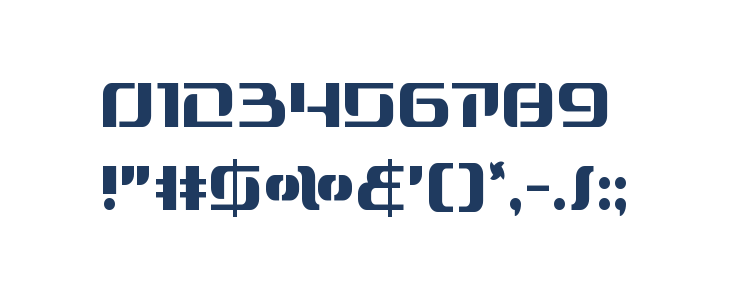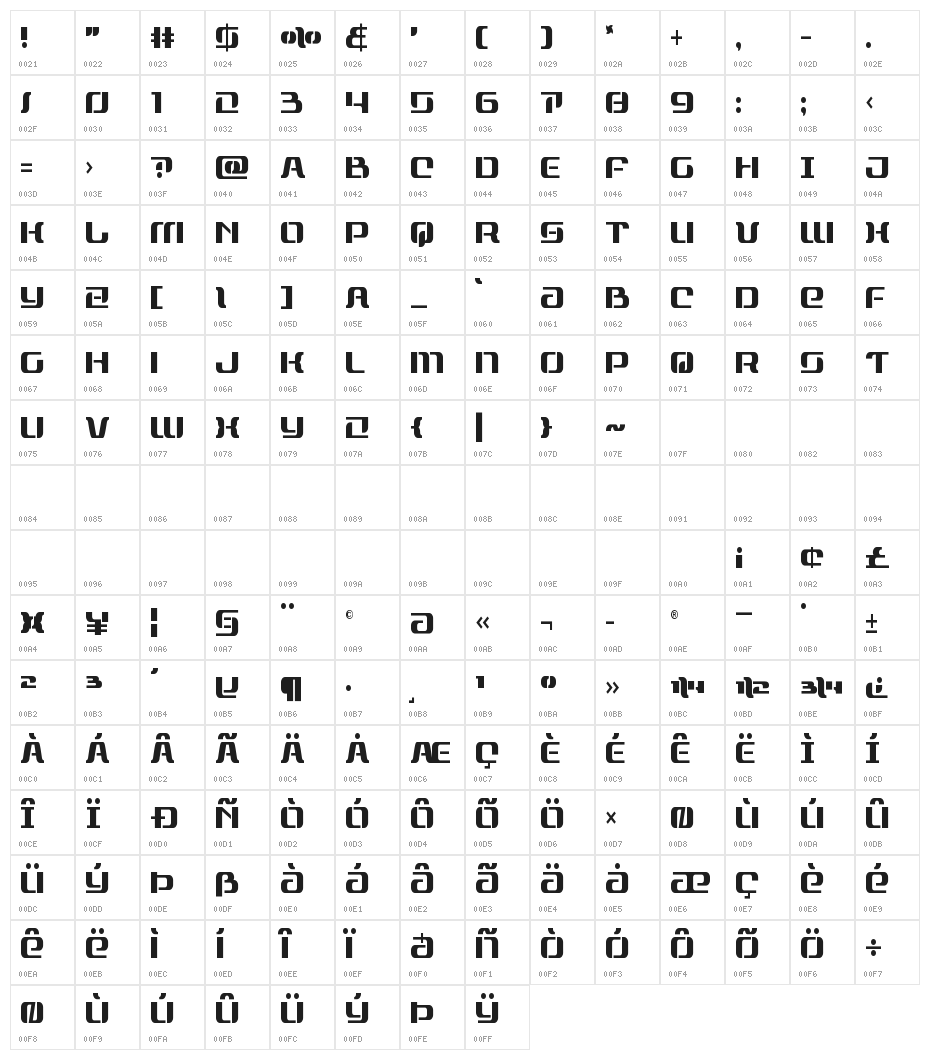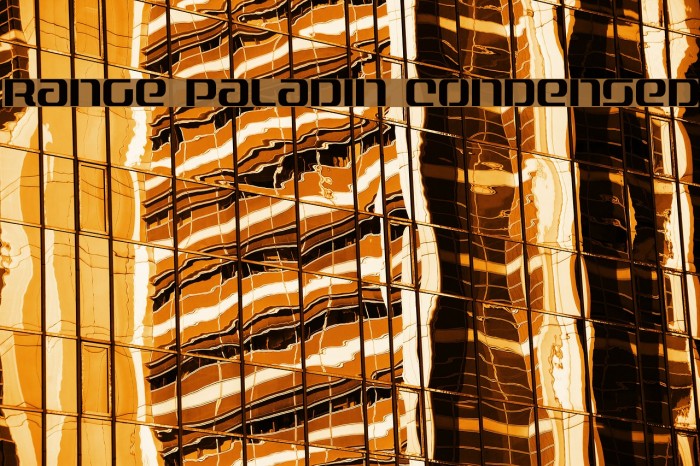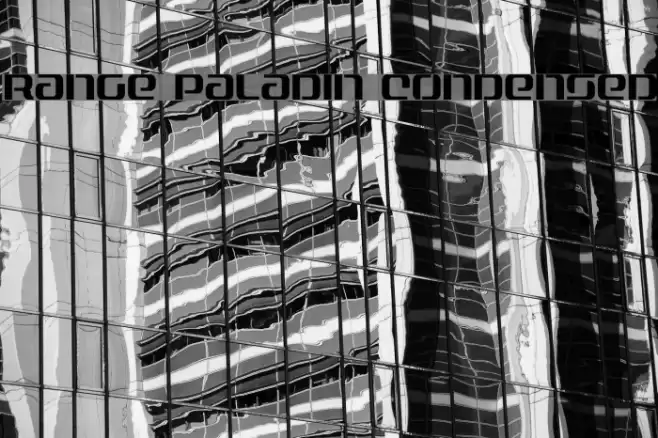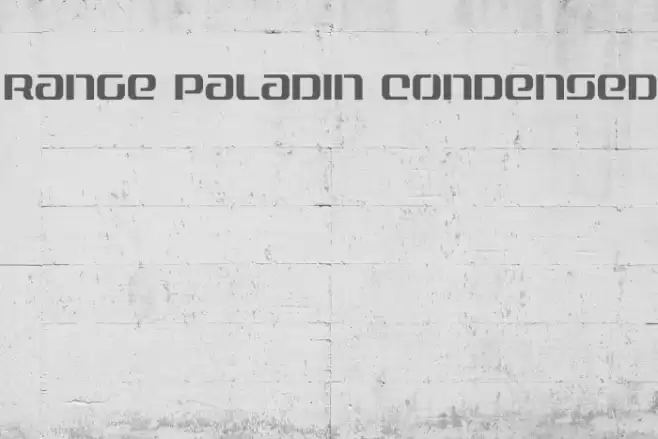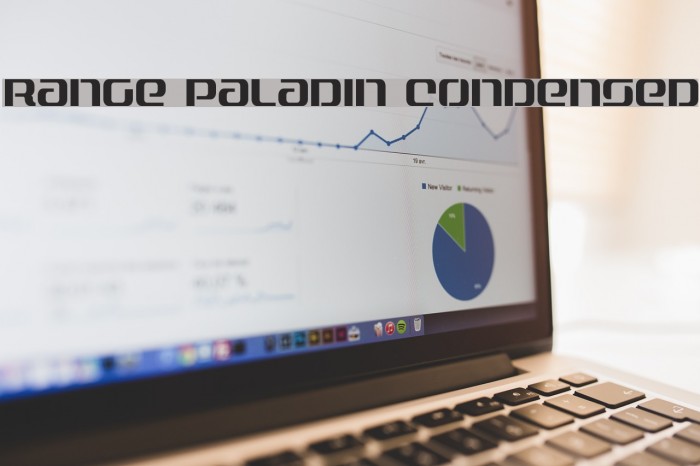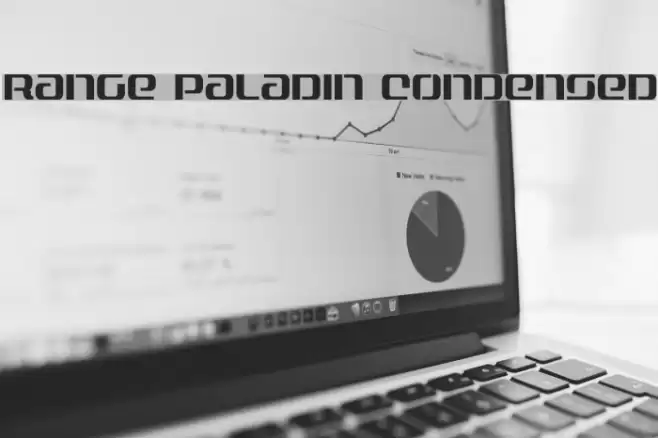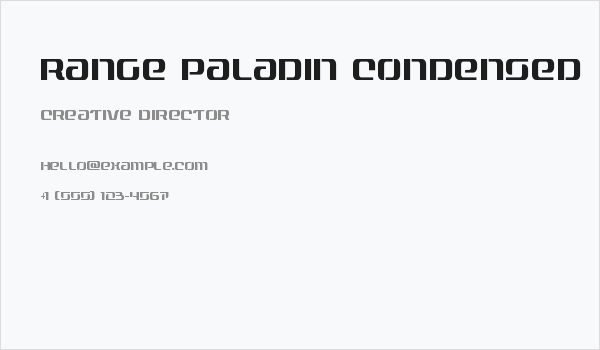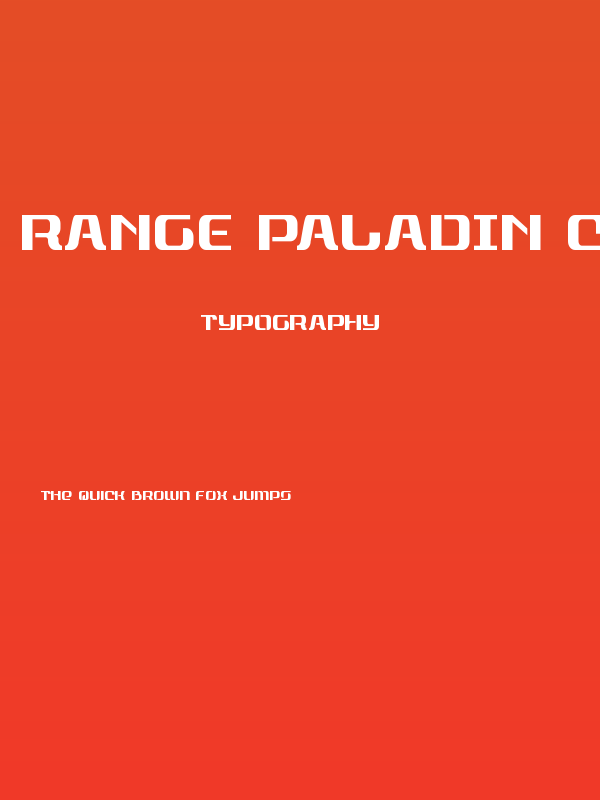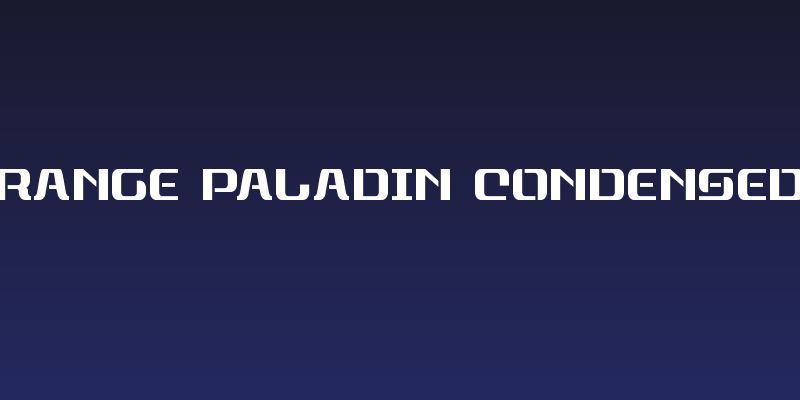
Range Paladin Condensed Font
Range Paladin Condensed Description
This font features a bold and futuristic design with a distinctly geometric structure. The characters are condensed, providing a compact and efficient use of space. Each letter is crafted with sharp angles and clean lines, creating a modern and tech-inspired aesthetic. The uppercase and lowercase letters maintain a consistent style, with unique cutouts and curves that add a dynamic feel. Numbers and special characters follow the same design principles, ensuring uniformity across all elements. The font's boldness and distinctiveness make it stand out, while its condensed form allows for versatility in various design contexts.
| Proposed Projects | Ideal for technology branding, sci-fi themed projects, modern posters, and innovative product packaging. |